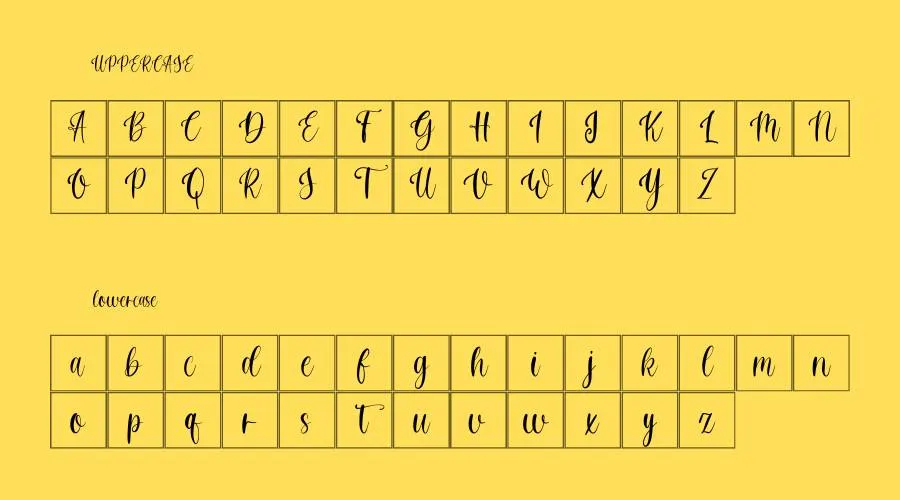
About Velvet Font
The Velvet is under the category of the calligraphy texture family. This font was developed by a well-known graphic designer named Fikryal studio with the modern and unique types of characters that are available in both file formats OTF and TTF. It was published by AE Type Inc. This typeface has two styles, which are designed with thoughtful consideration.
It is a modernist font with different contemporary features and deep, bold functions. The online generator tool of this typeface will help you to transform all your normal types of alphabet characters into stylish and modern shapes.